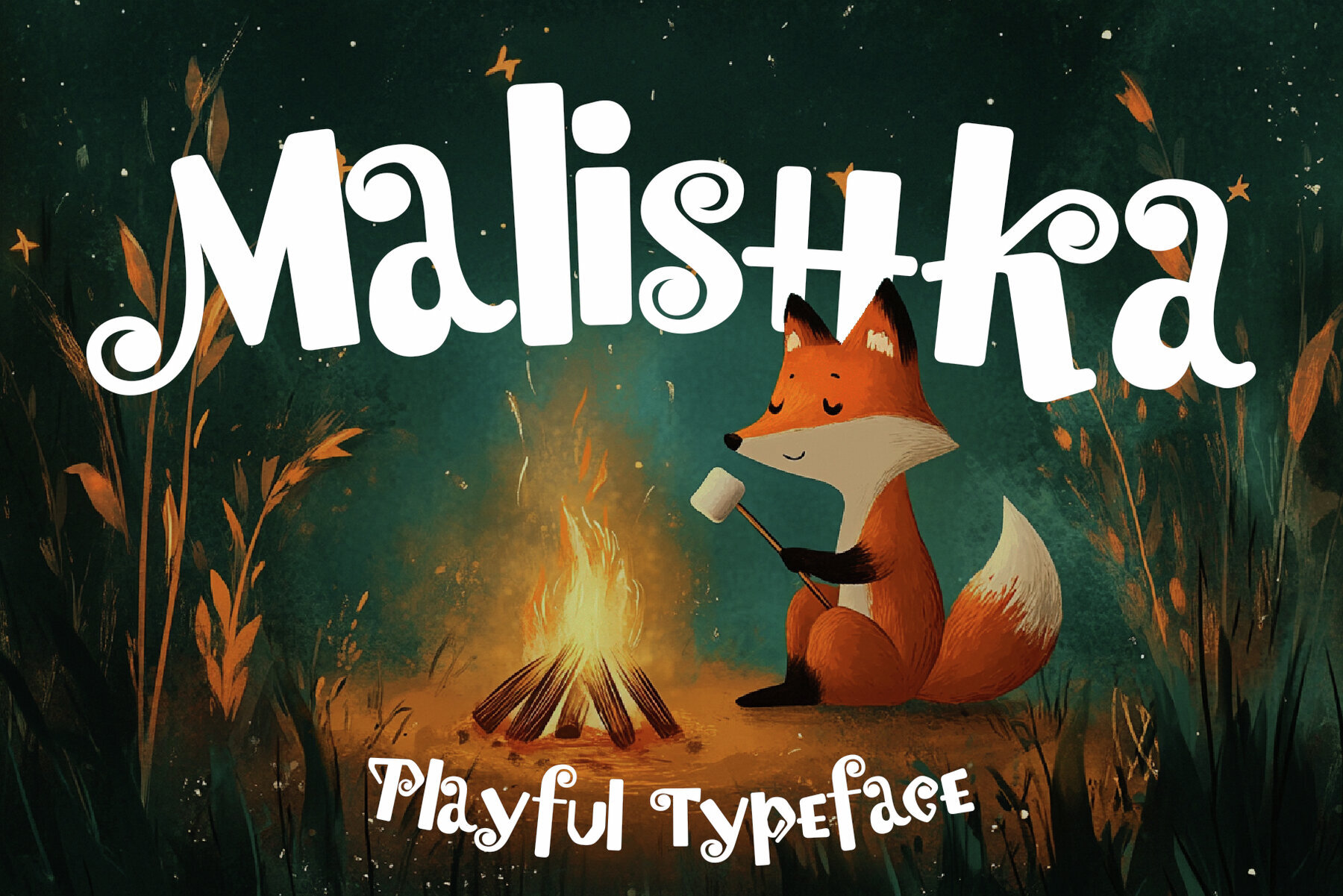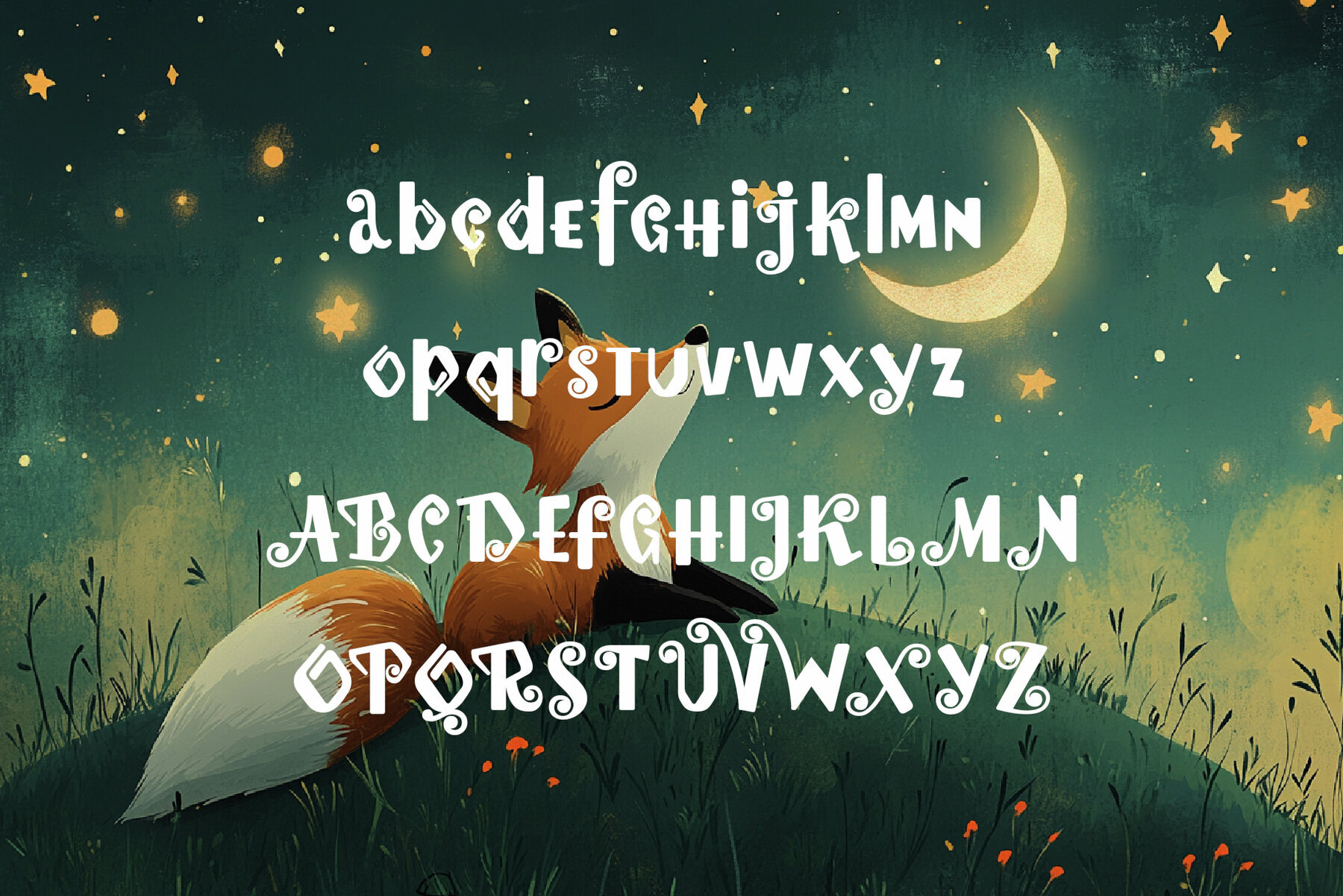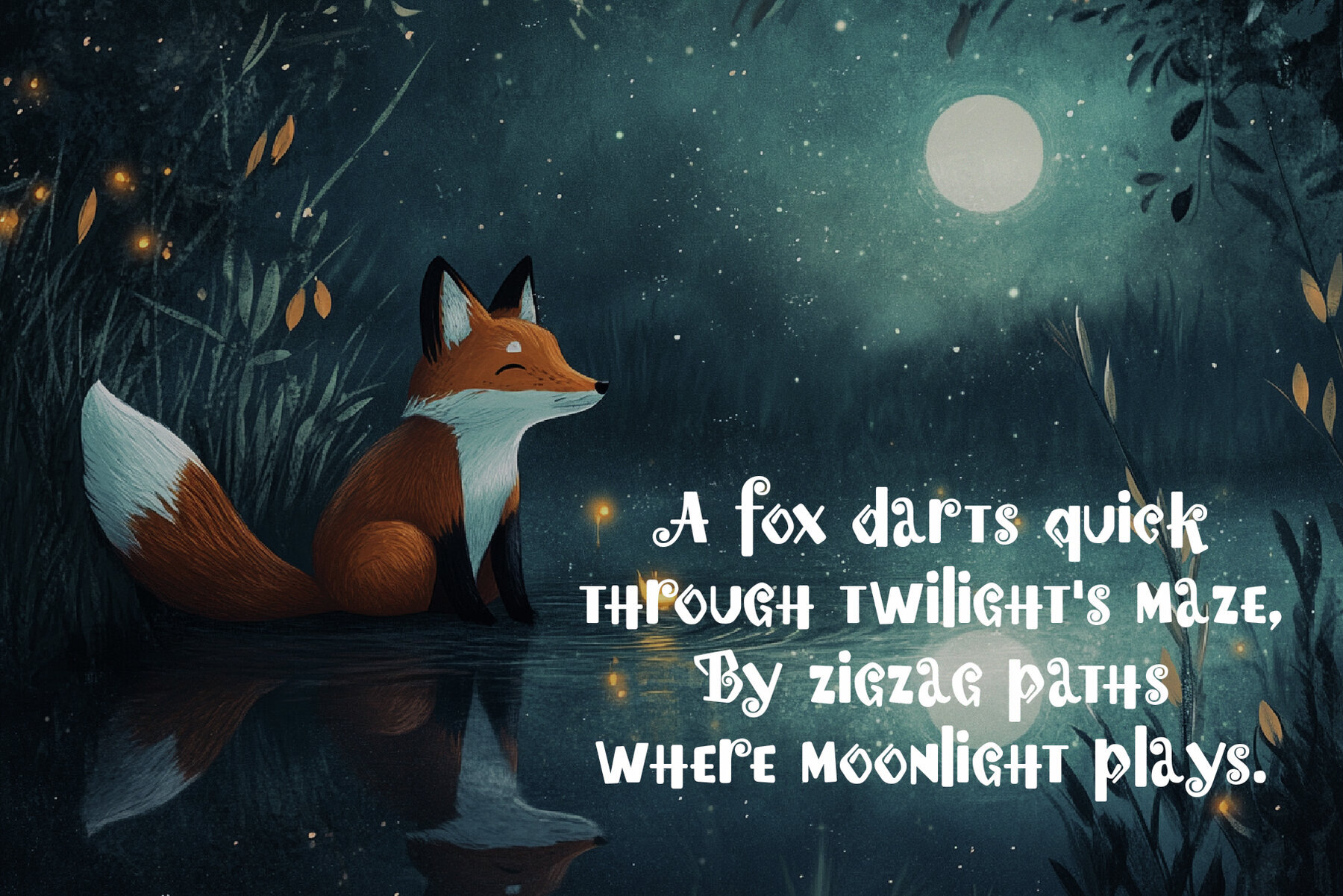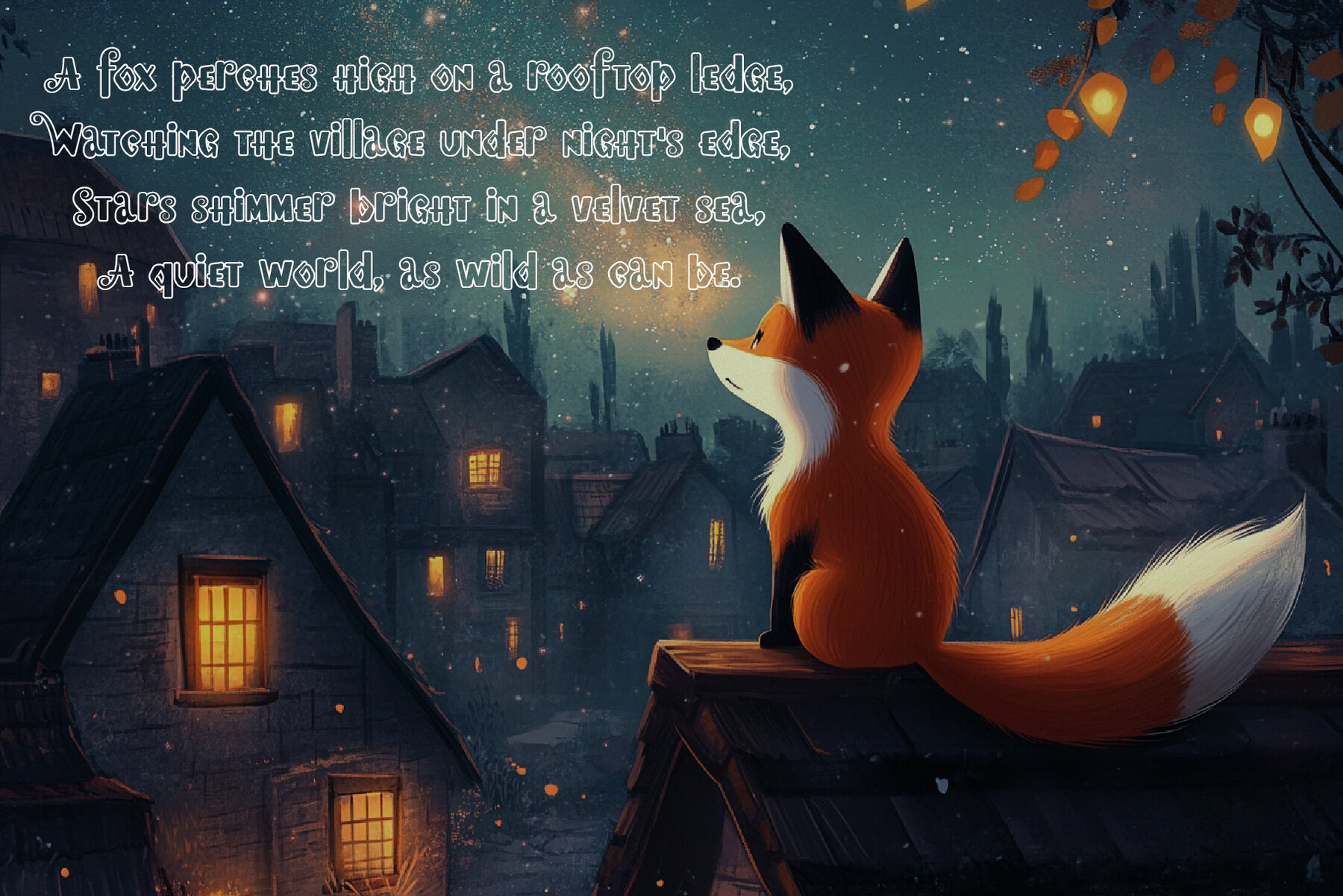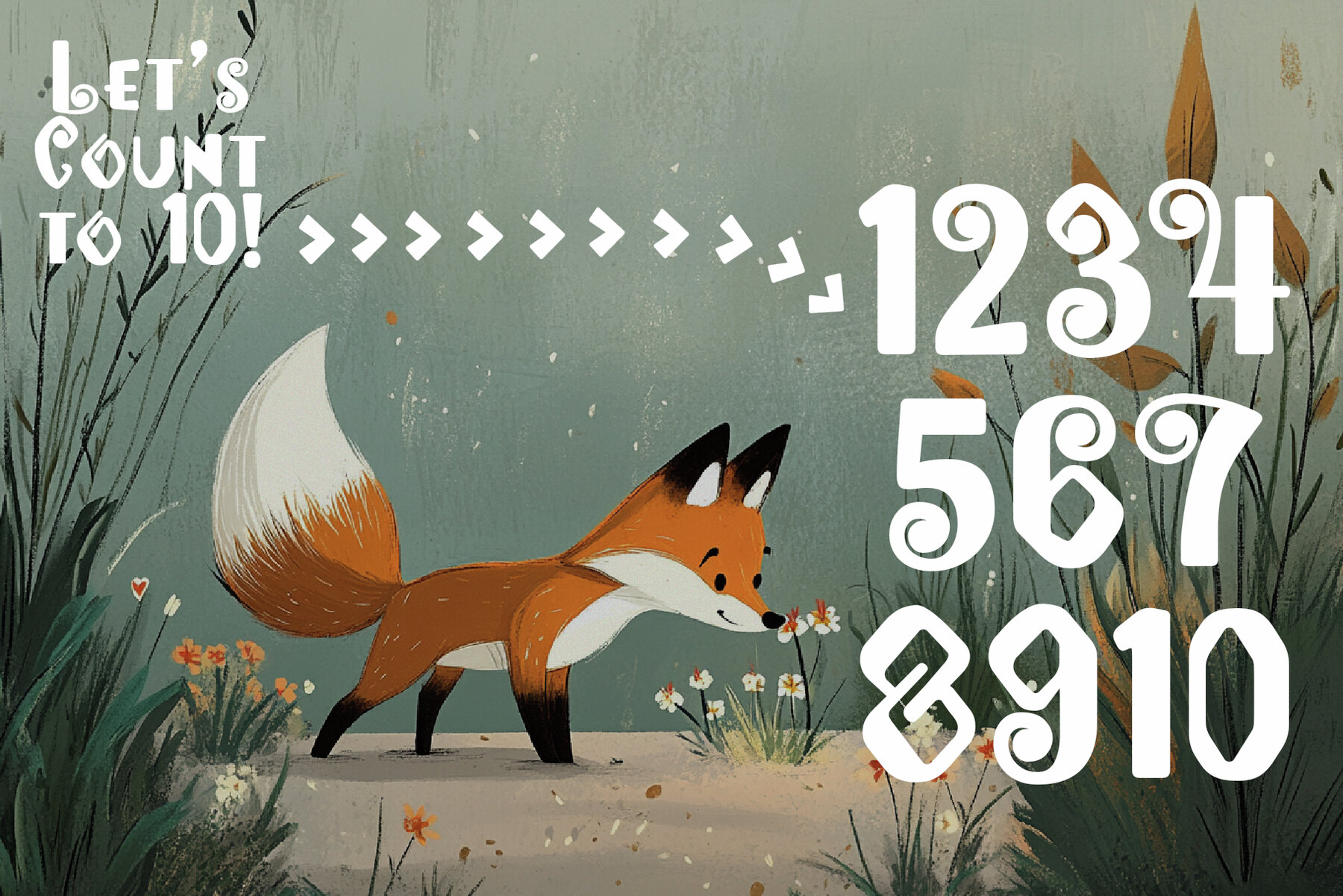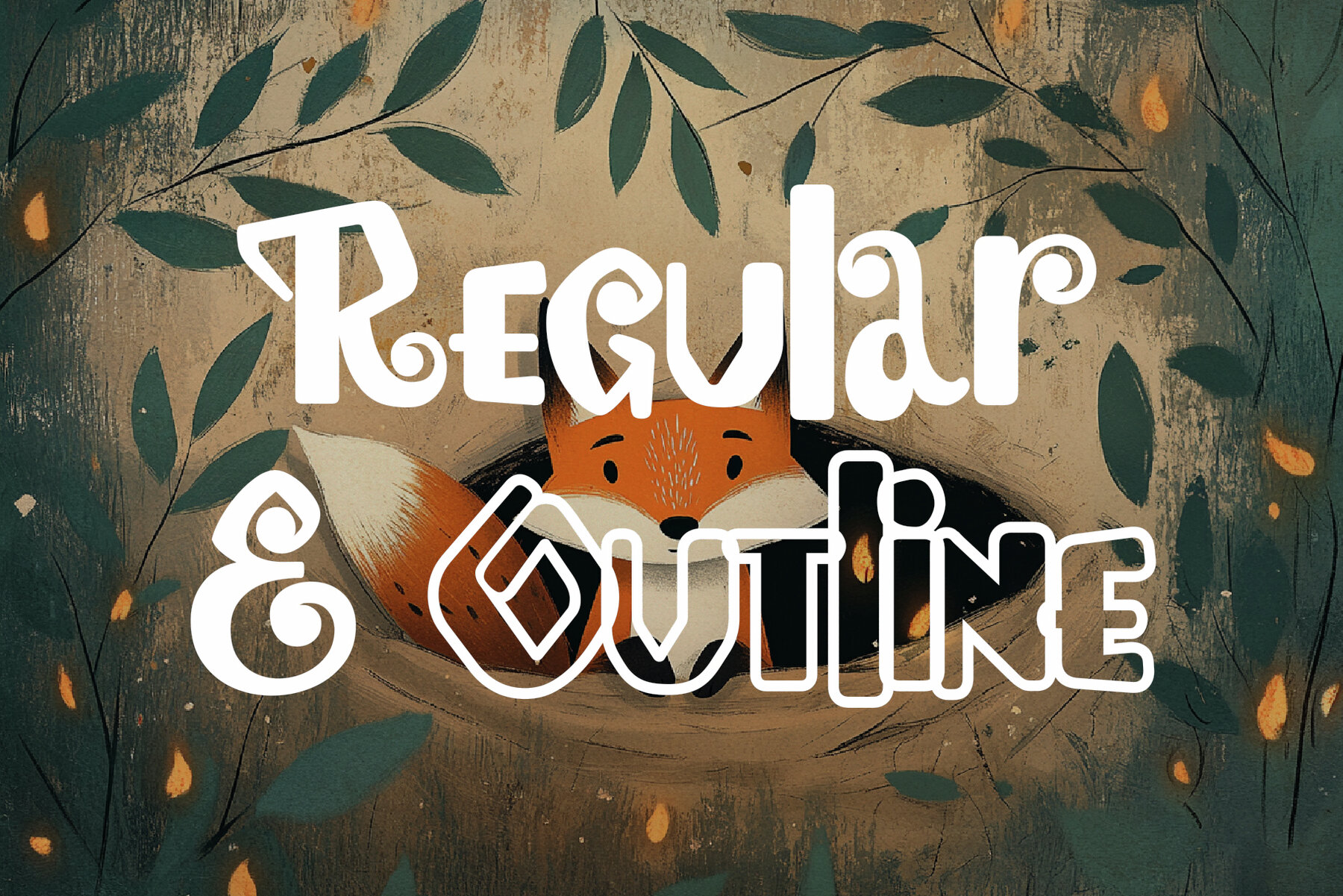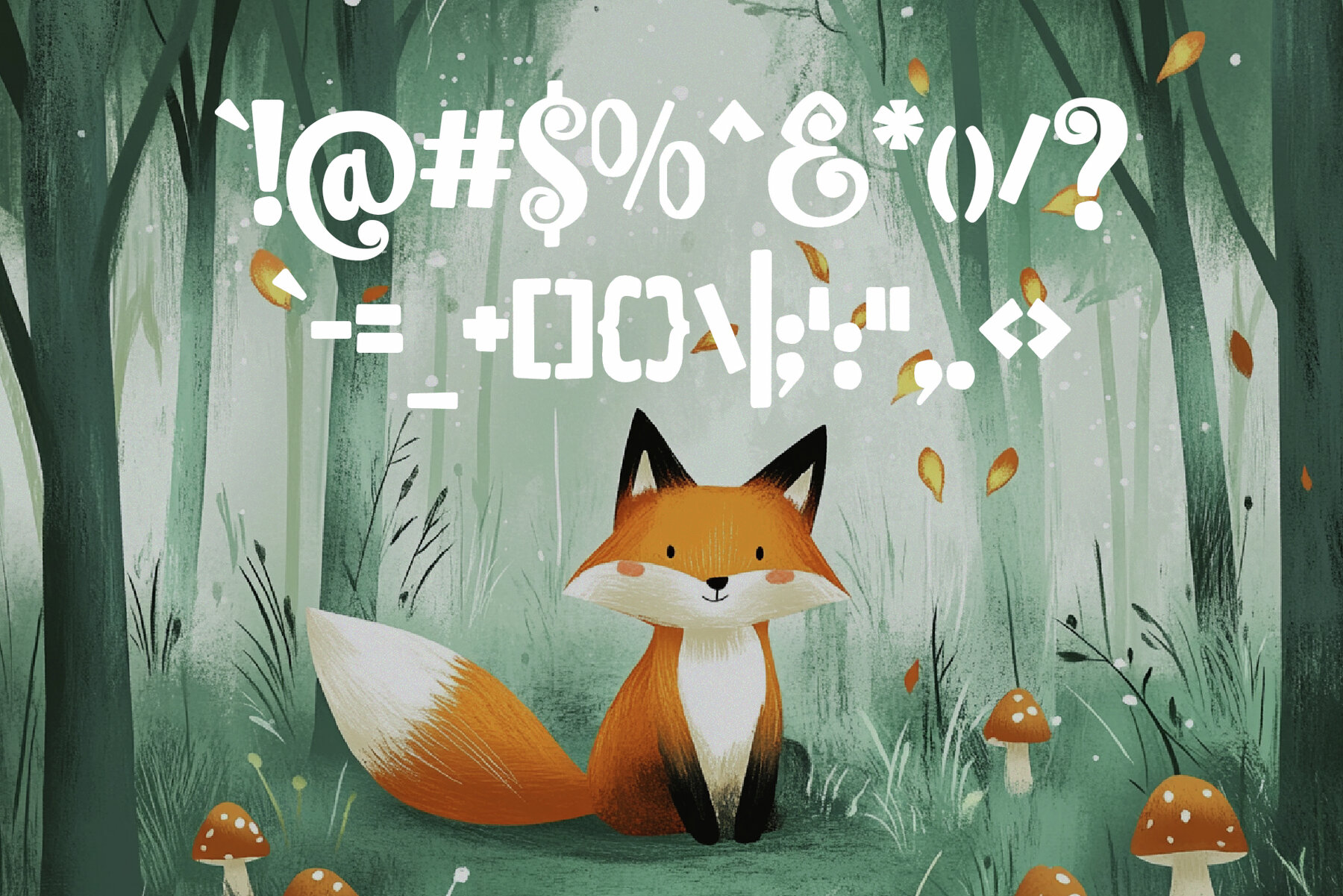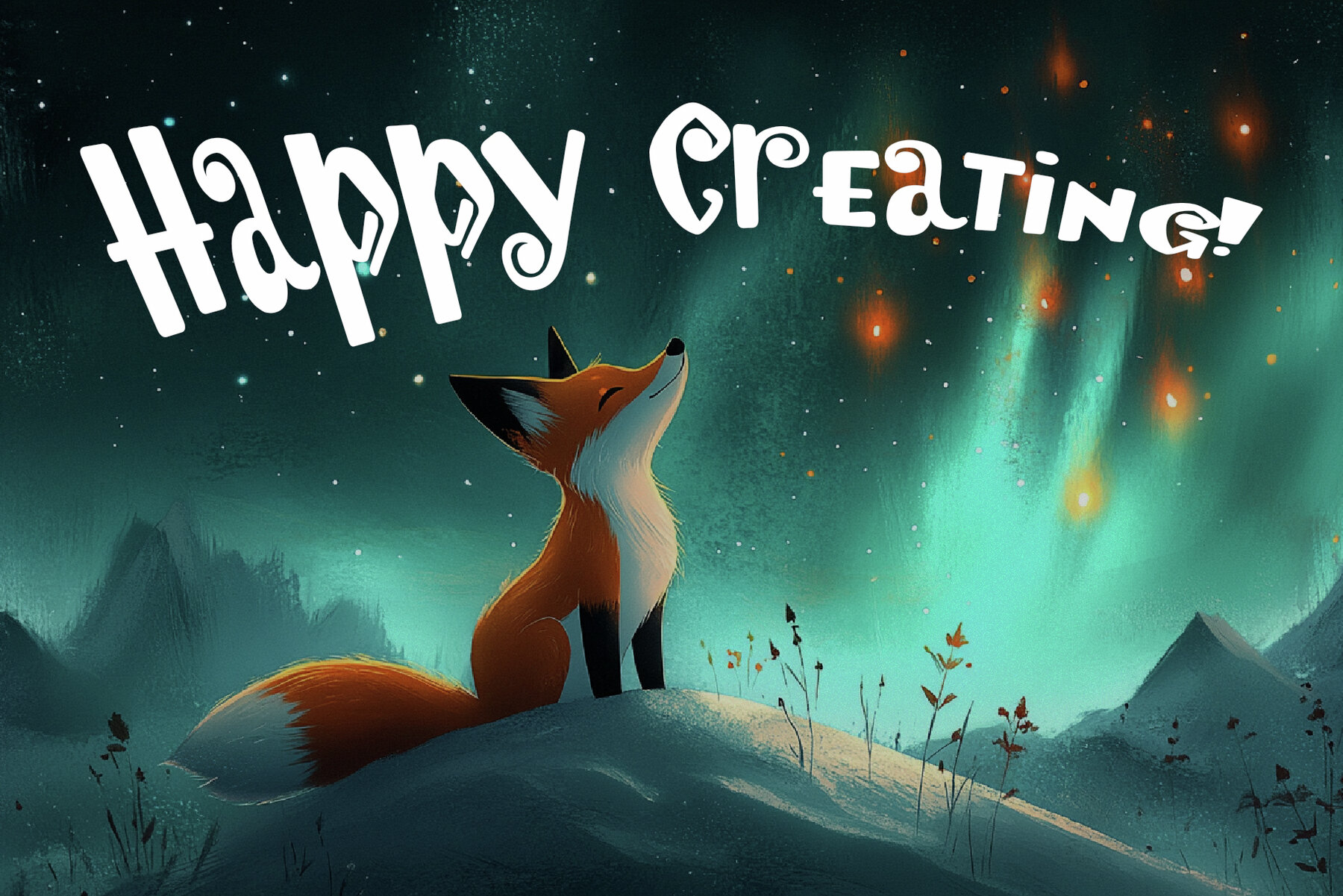
Malishka Font
Malishka captures the essence of childhood wonder with its playful and delightful serif design. This unique typeface, seamlessly blending serif and sans-serif characters, offers a distinctive yet timeless appeal. Each letter of Malishka is crafted with whimsical flair, making it an ideal choice for projects requiring a touch of joy—such as children's books, playful branding, or imaginative posters.
The font's quirky personality is matched by its exceptional readability, ensuring it remains both approachable and fun. Whether you're creating designs that speak to young audiences or seeking to infuse a joyful spirit into various projects, Malishka stands out with its charming and memorable style. Embrace the magic of Malishka to transform your creative endeavors with an unforgettable touch.